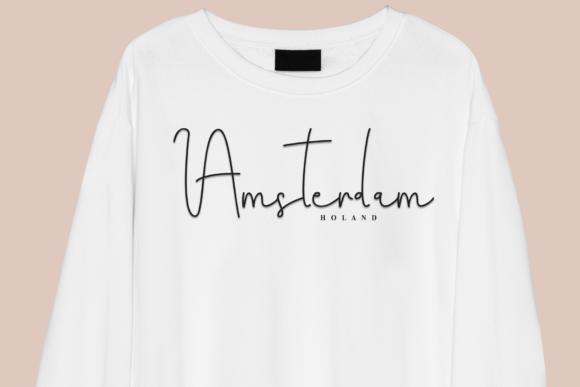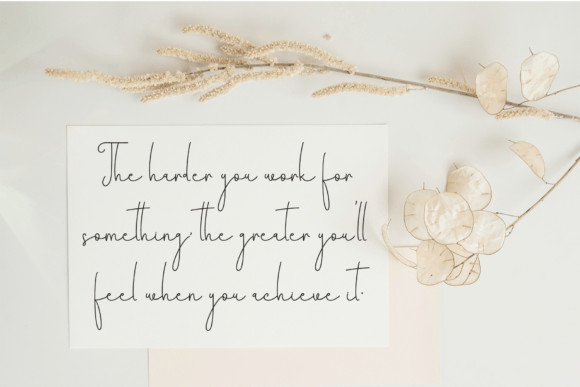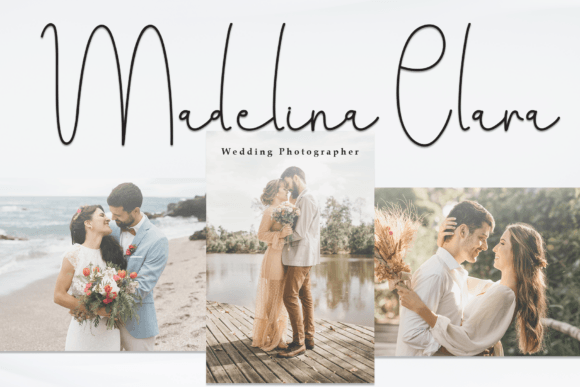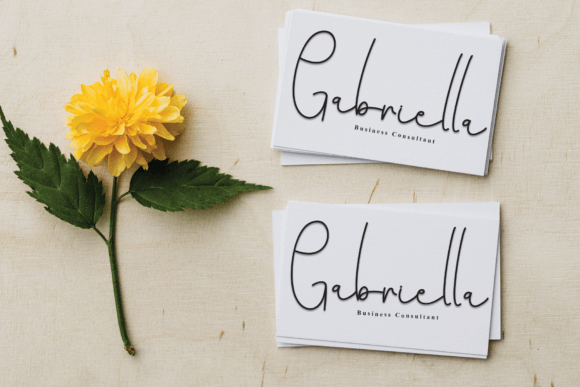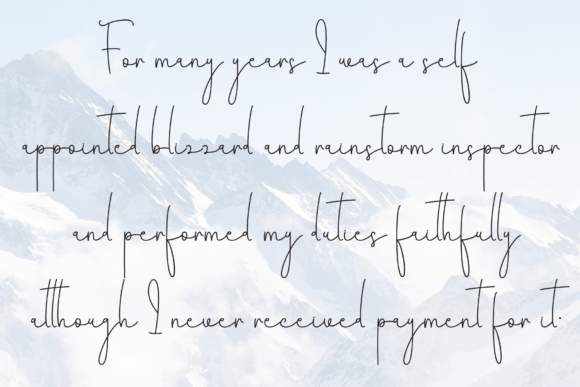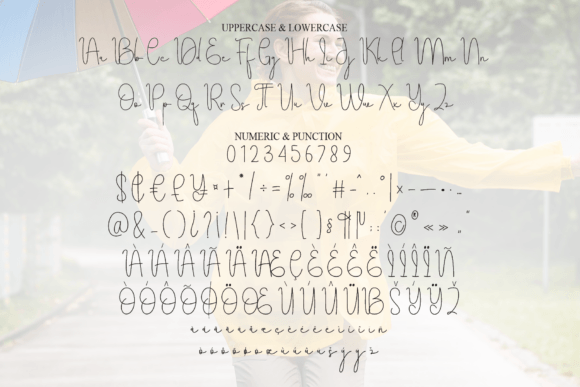
Introduction to Raincoat Font
Raincoat is a stylish script font with smooth, flowing letters.
Its elegant curves give it a casual yet sophisticated feel, perfect for adding a personal touch to your designs .
Key Features of Raincoat Font